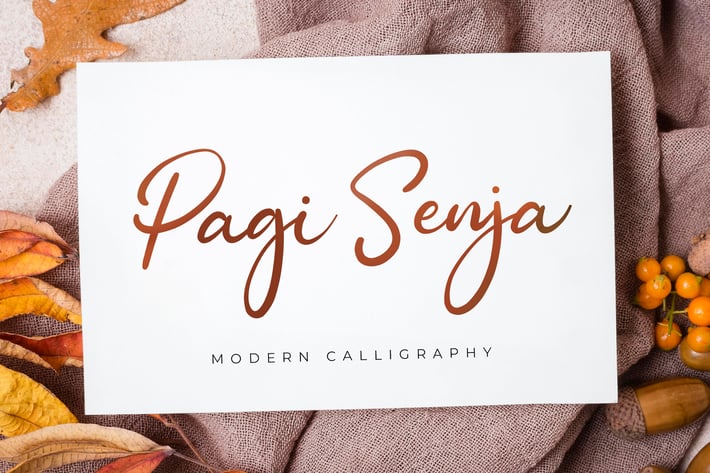
Pagi Senja - Calligraphy Font
Introducing Pagi Senja - Calligraphy Font
Pagi Senja results out of a stunning pairing of a brush pen that makes it look incredibly endearing and authentic. Use this gorgeous and unique script font to bring any DIY project to life!